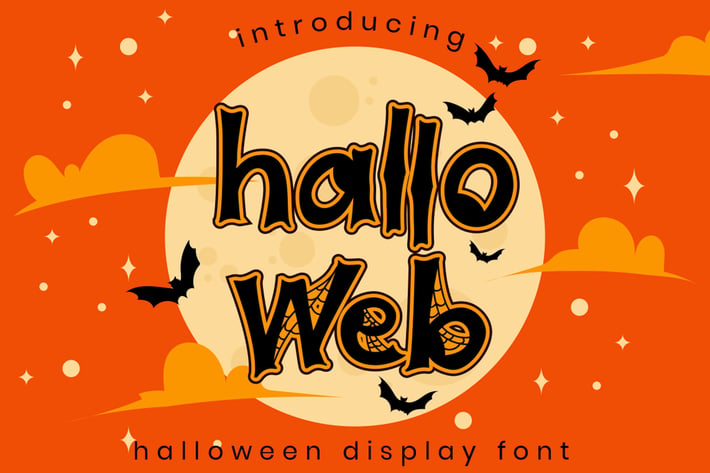
Halloweb - Halloween Font
Halloweb is halloween theme display font, including 2 style regular and display with spider web ornament. Combination of halloweb font make an unique typeface,